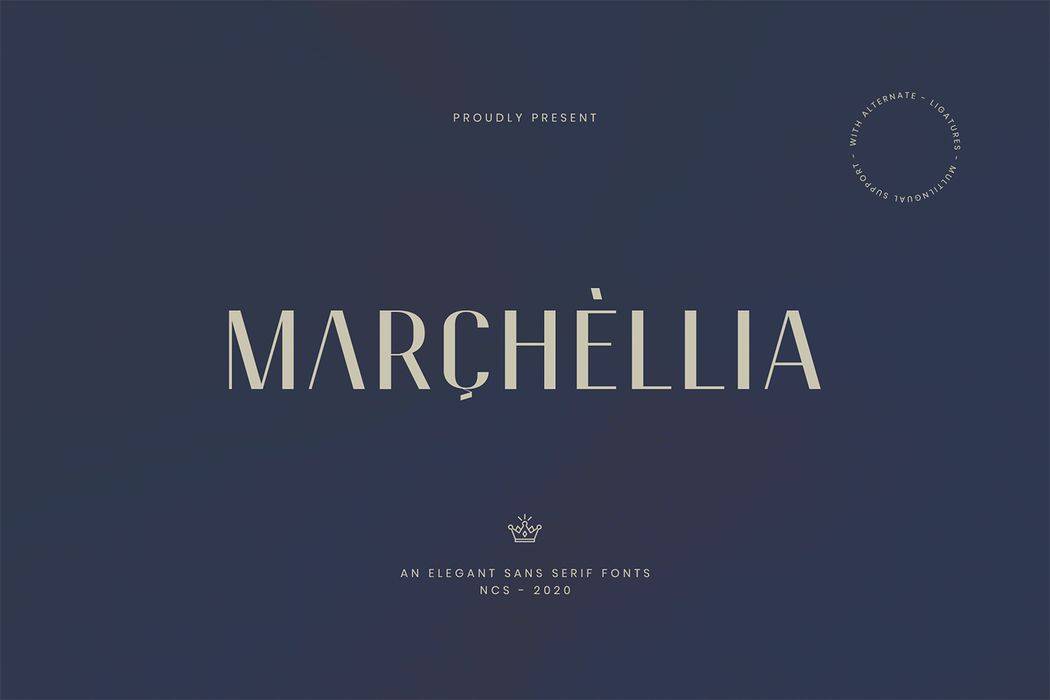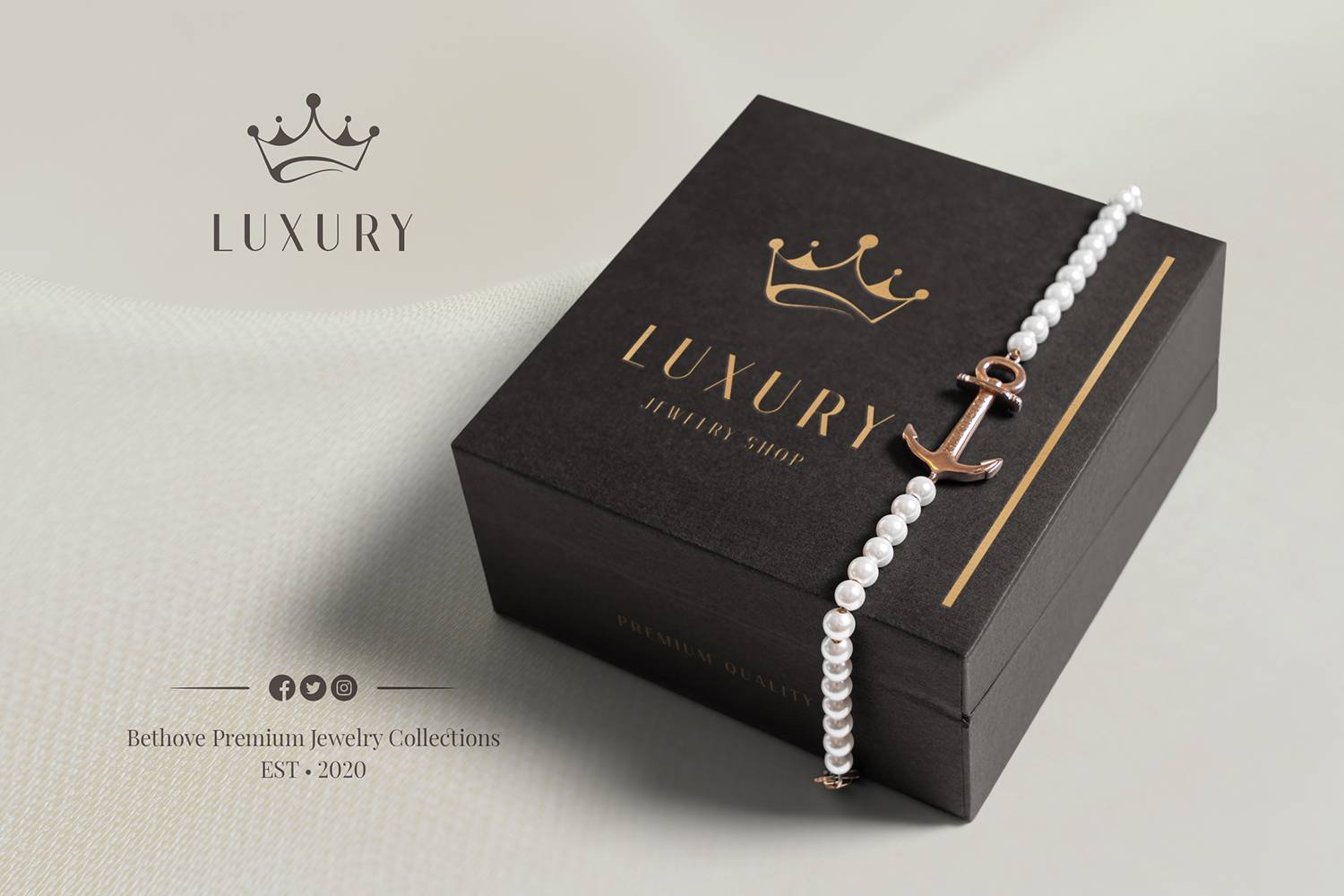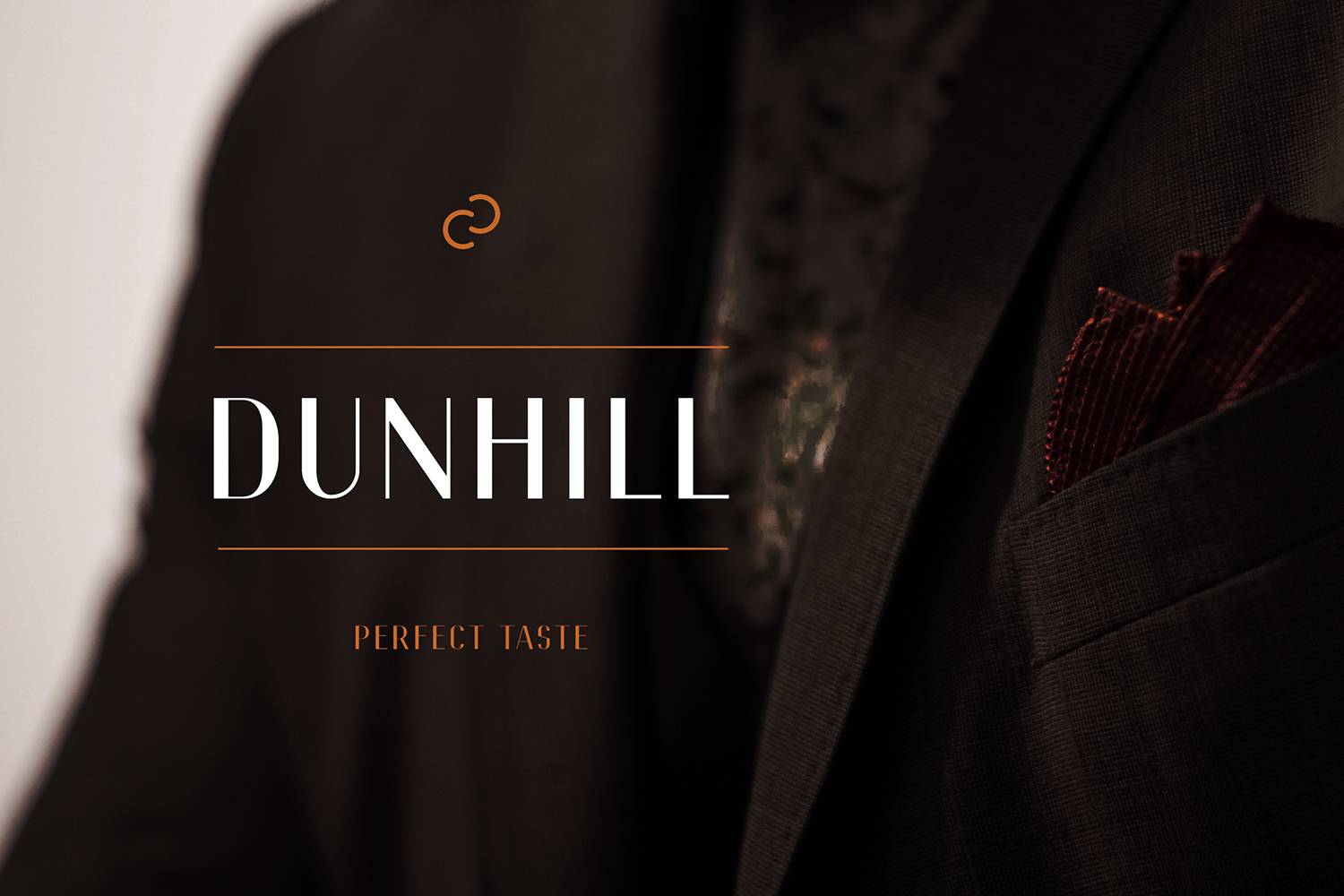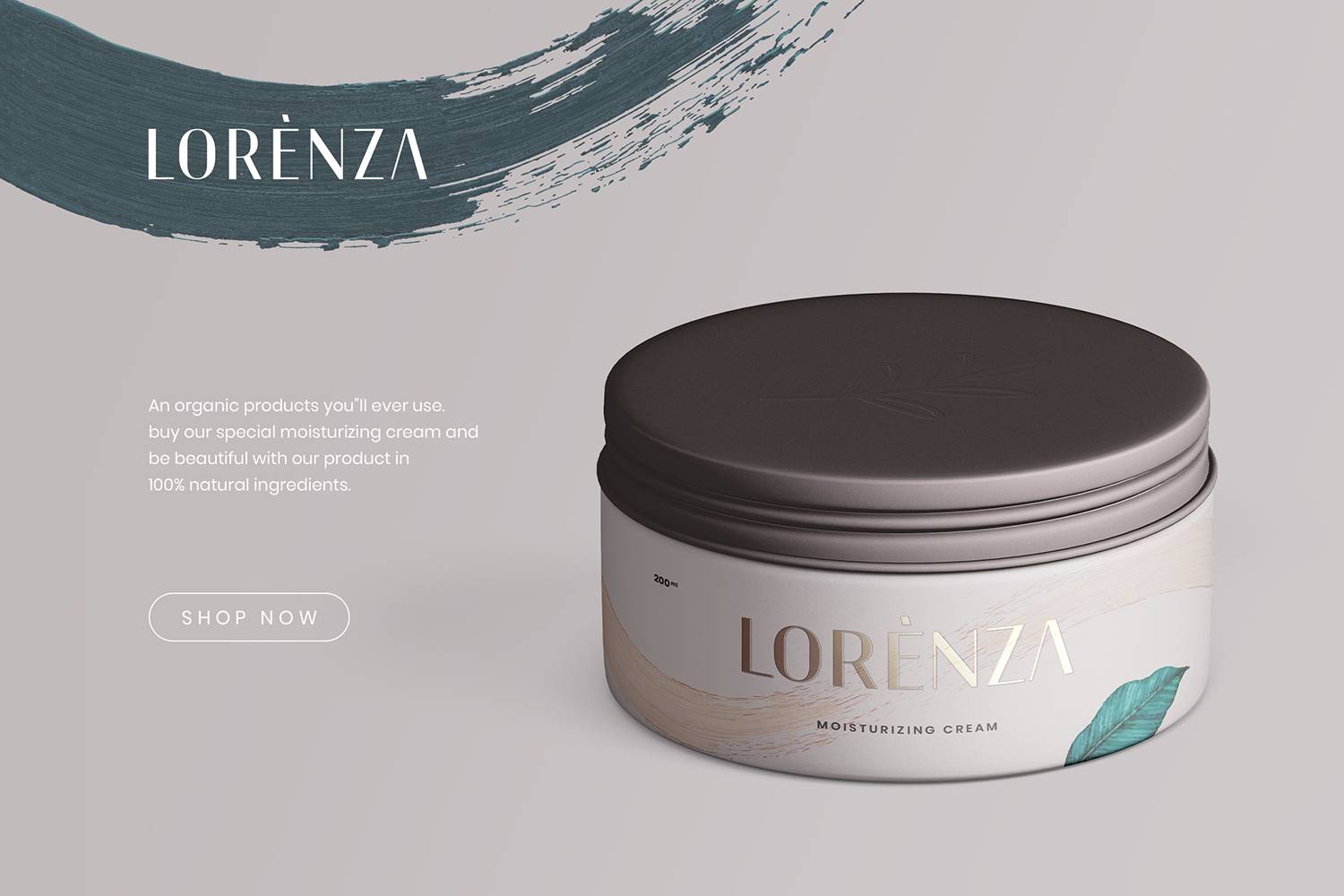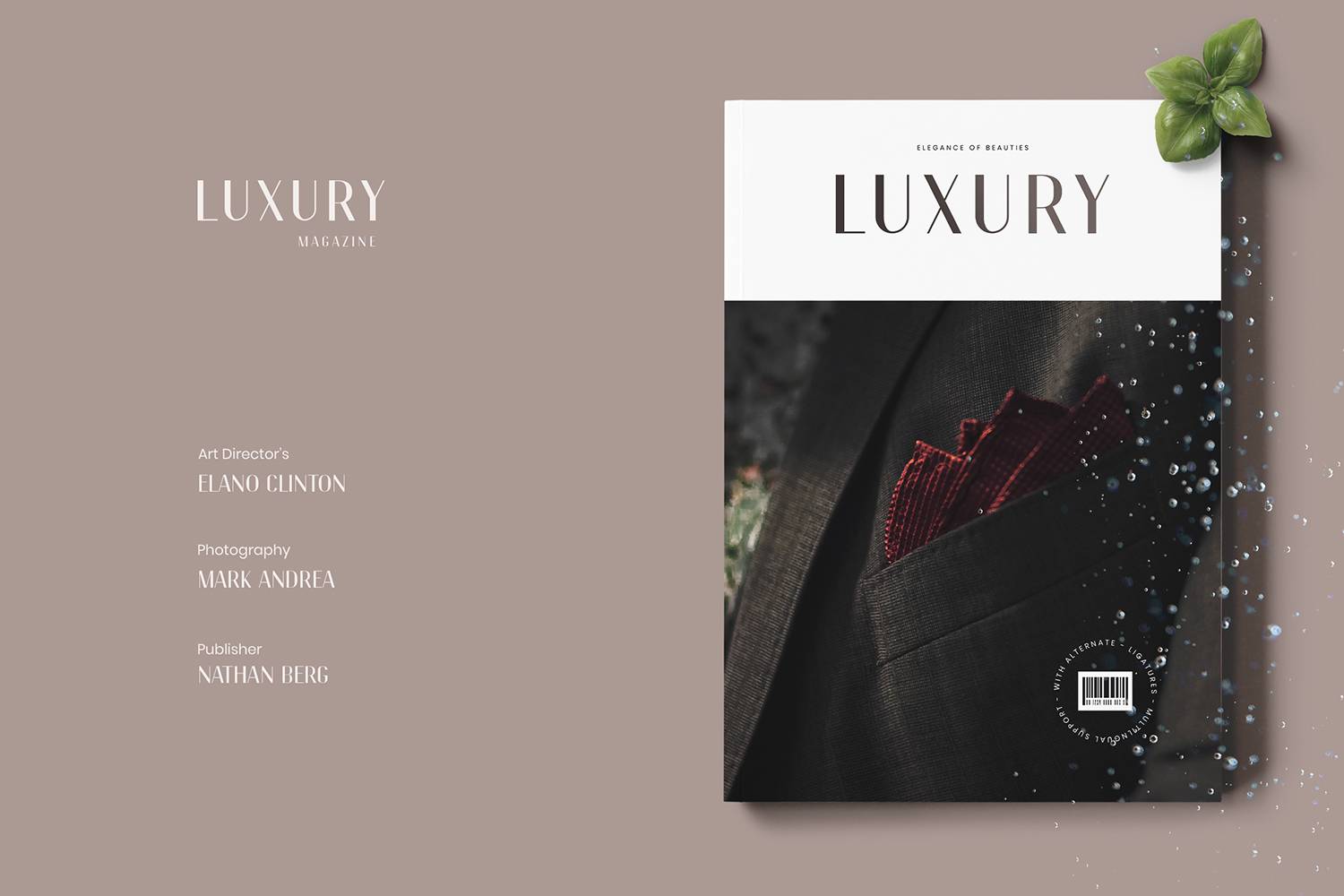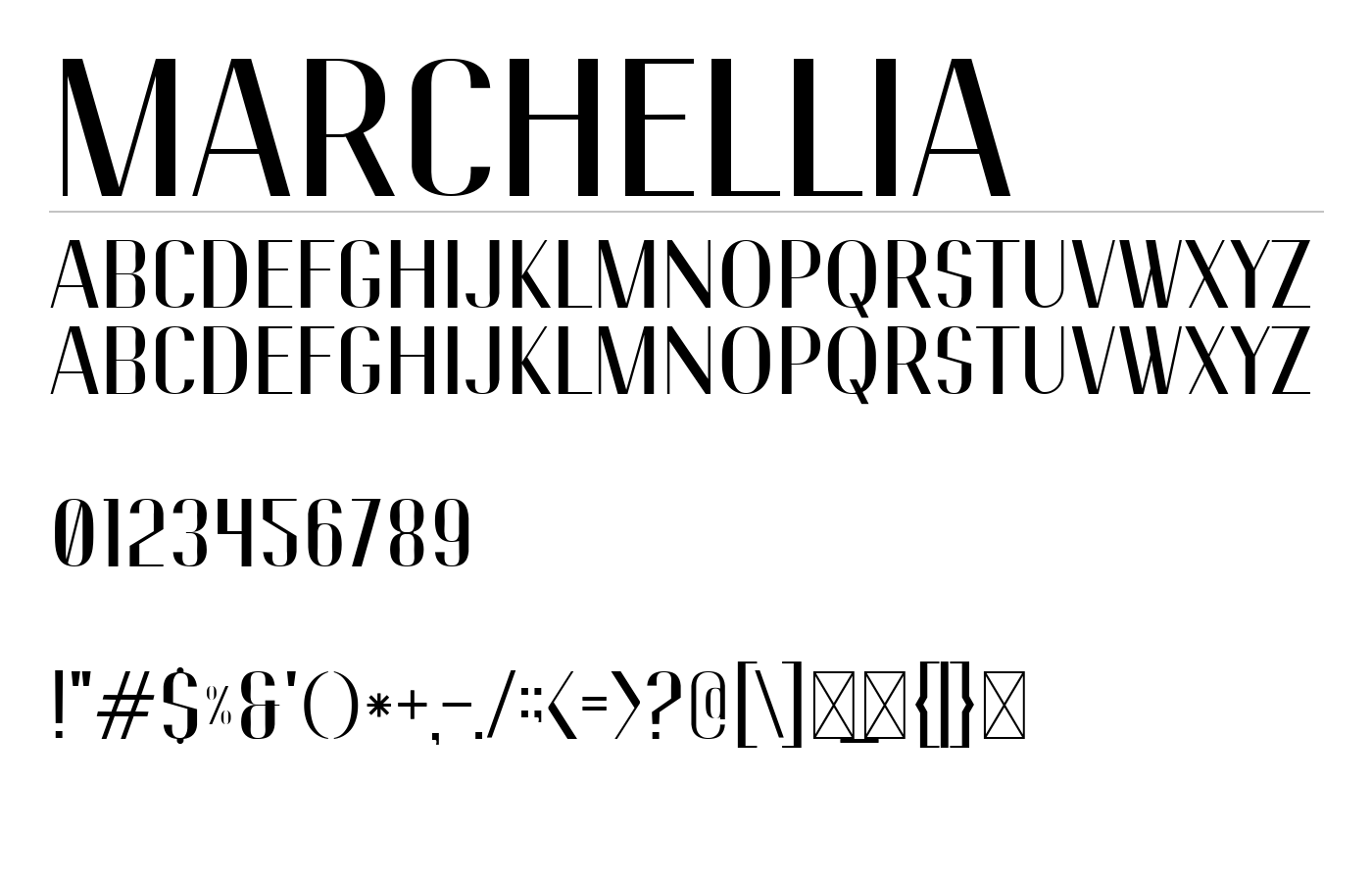
Marchellia Sans is a modern, high-contrast sans serif font with an elegant and tall structure, featuring narrow letterforms and sleek strokes that convey sophistication and luxury. Its refined appearance, with unique details such as its stylish Q tail and single-story shapes, makes it perfect for high-end branding, fashion projects, and striking headlines that require a touch of contemporary class. This font works best in logos, editorial headlines, and upscale packaging where a clean, upscale look is desired.
Marchellia Sans Font
About Marchellia Sans Font
| Font family | Marchellia Sans Font |
| Designer | Toni Setiawan | Namara Creative Studio |